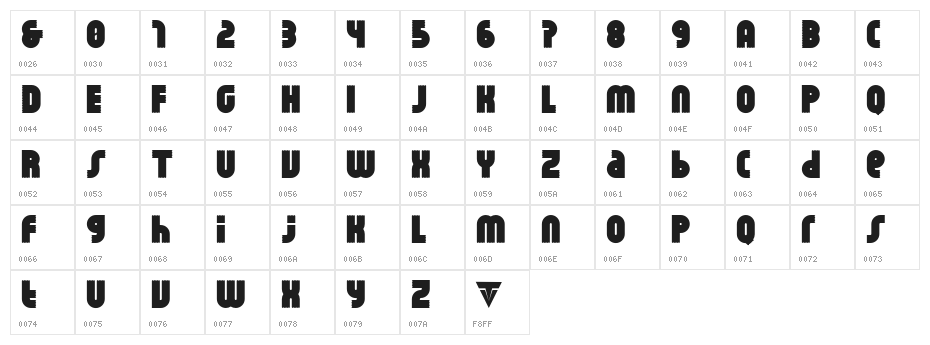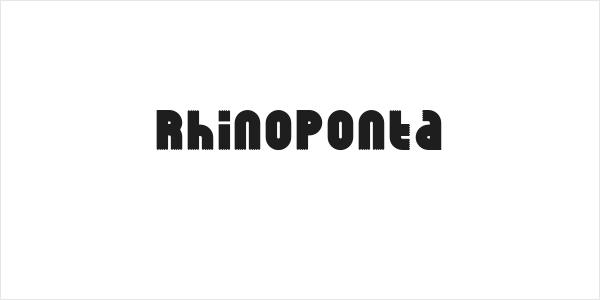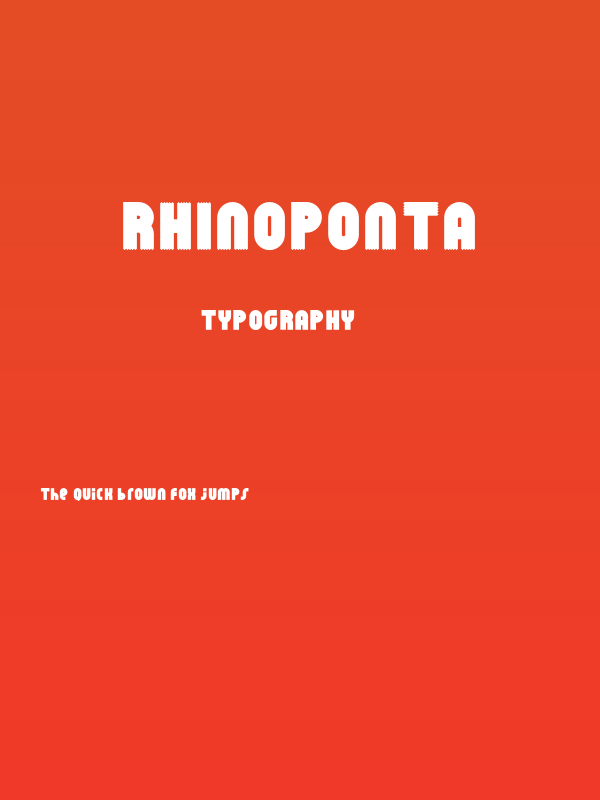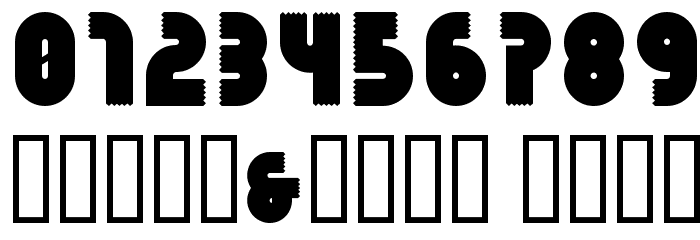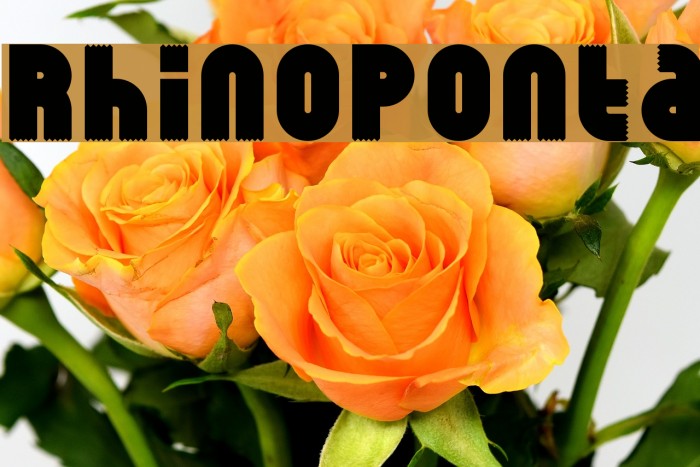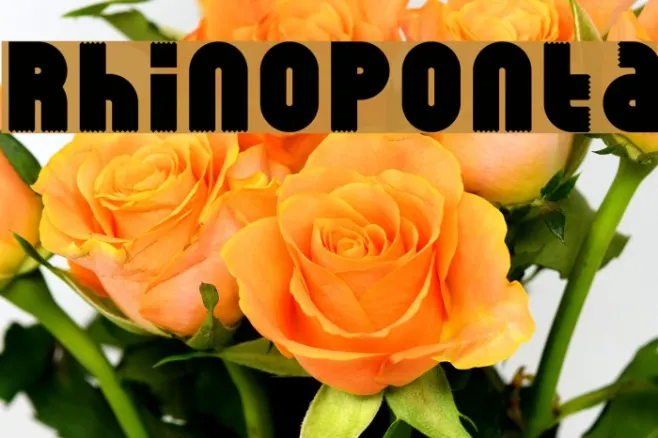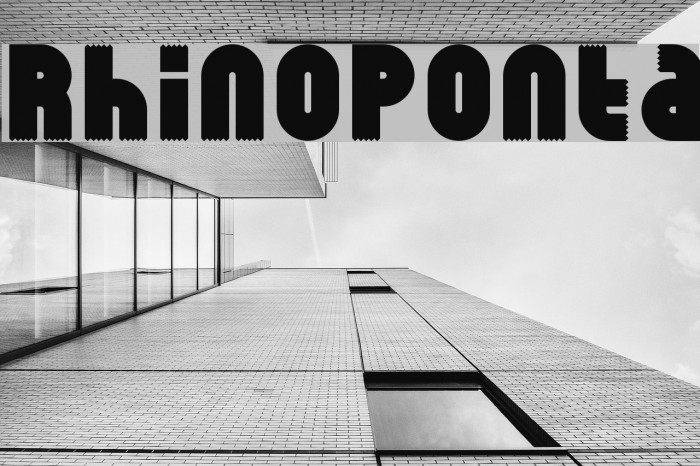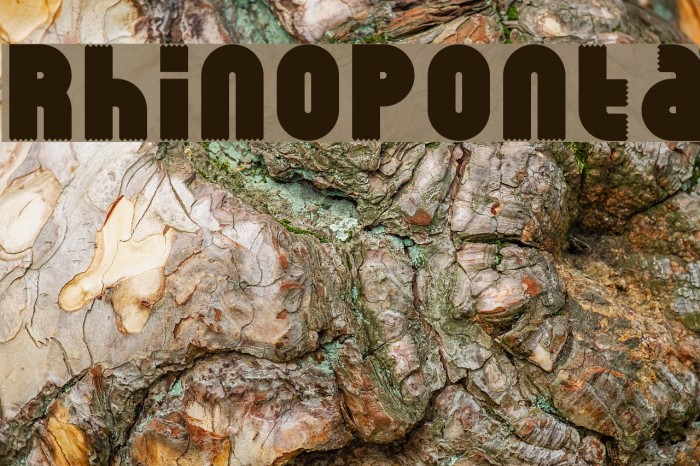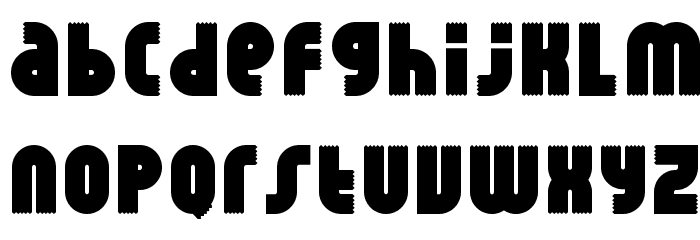
RhinoPonta Font
RhinoPonta Description
This font features a bold and striking design with a unique, sawtooth-like pattern along the edges of each character. The uppercase and lowercase letters are consistent in their boldness, creating a strong visual impact. The numbers and special characters maintain this distinctive style, ensuring a cohesive look across all elements. The font's heavy weight and decorative elements make it ideal for attention-grabbing headlines or branding materials that require a bold statement. Its geometric shapes and sharp edges give it a modern and edgy feel, perfect for projects that aim to stand out.
| Overall Style | Modern, Edgy |
| Proposed Projects | Ideal for branding, posters, headlines, and any project requiring a bold, eye-catching font. |